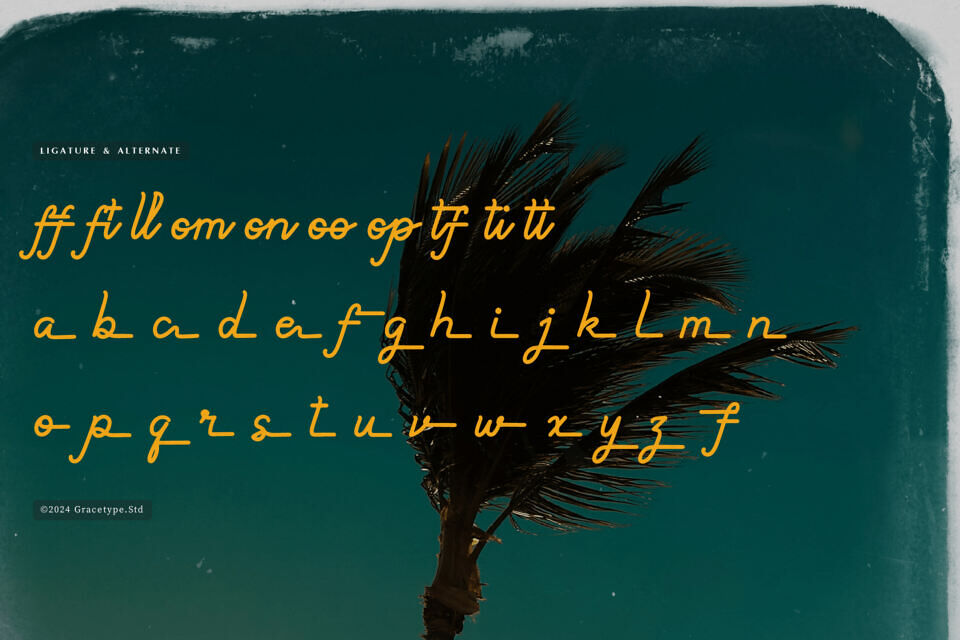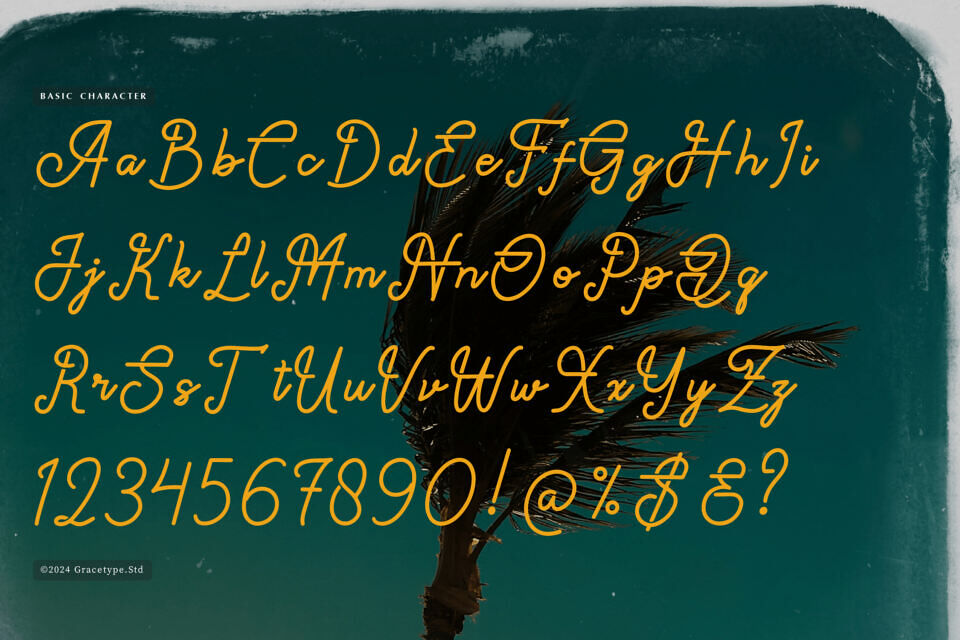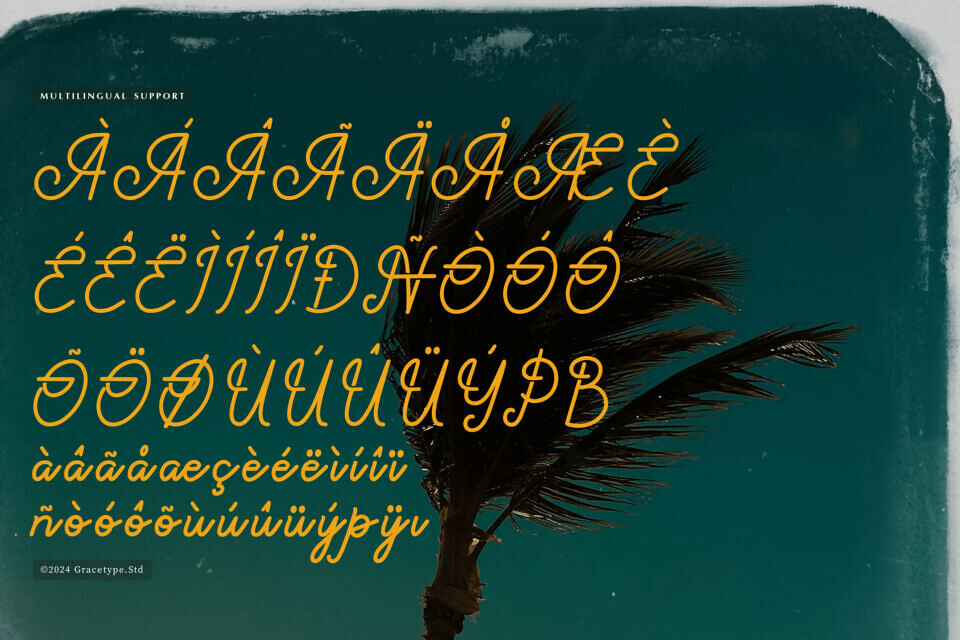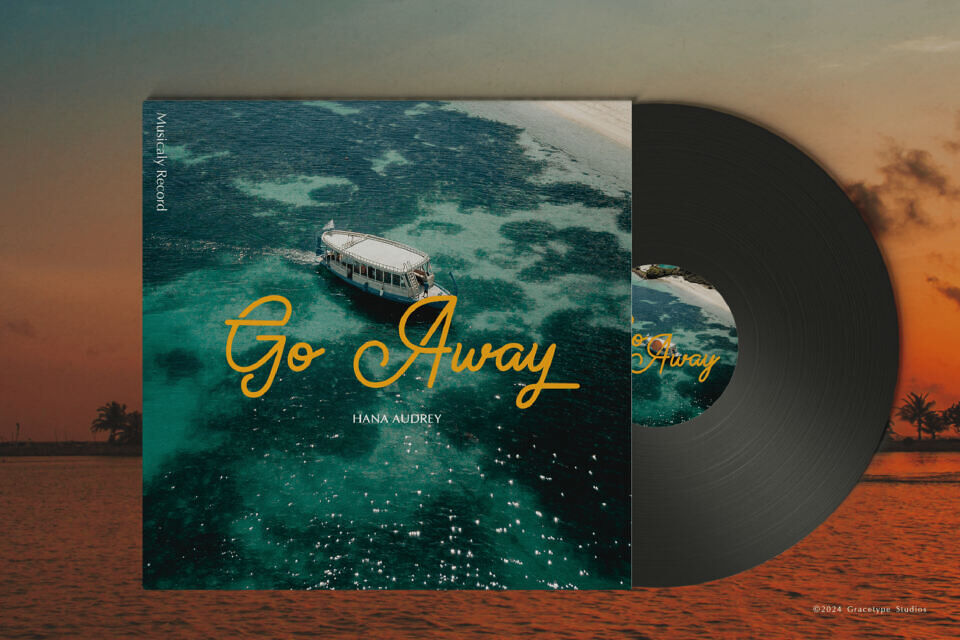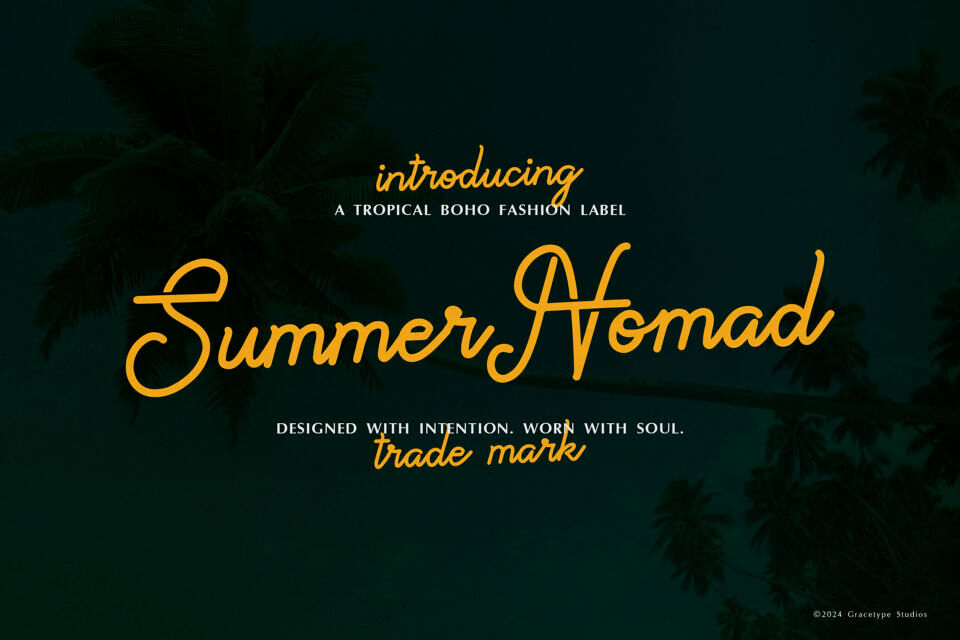
Paradise Gallaiso Font
Paradise Gallaiso is a Monoline Script Typeface from Gracetypestudio, suitable for any projects such as: logos, branding projects, homeware designs, product packaging, mugs, quotes, posters, shopping bags, t-shirts, book covers, name card, invitation cards, greeting cards, label, photography, watermark, special events, and all your other lovely projects that need a Monoline Script font taste.